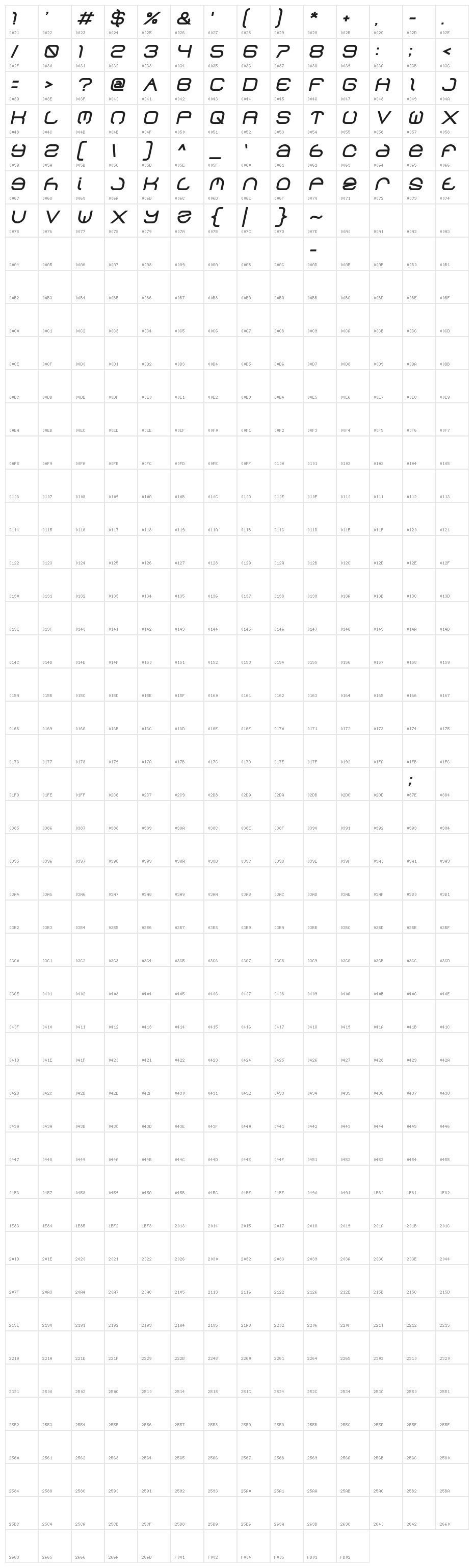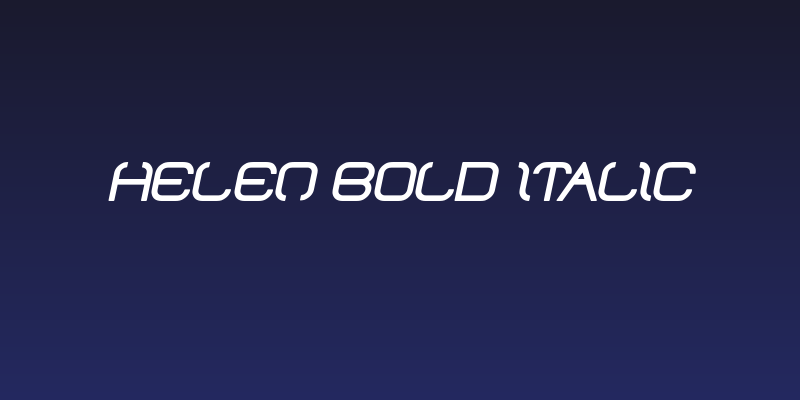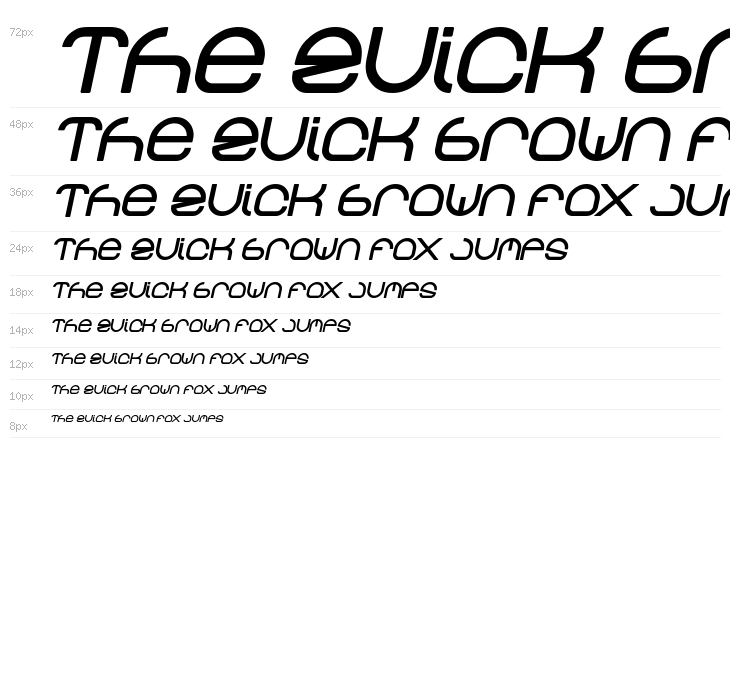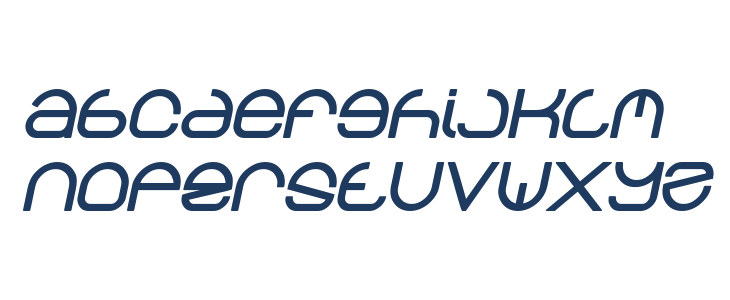
helen Bold Italic Font
helen Bold Italic Description
This font exhibits a sleek, modern design with a distinct italic slant, giving it a dynamic and forward-moving appearance. The characters are bold, with a consistent thickness throughout, contributing to a strong visual impact. The rounded edges and smooth curves add a touch of elegance, while the geometric structure maintains a sense of order and precision. The uppercase and lowercase letters are well-balanced, and the numerals are clear and easily distinguishable. The special characters are designed with the same attention to detail, ensuring a cohesive look across all glyphs. This font is ideal for projects that require a contemporary and stylish aesthetic.